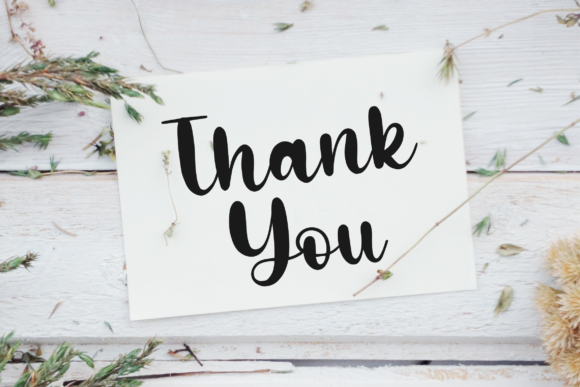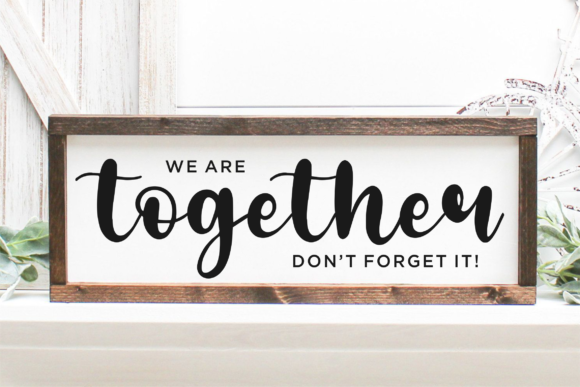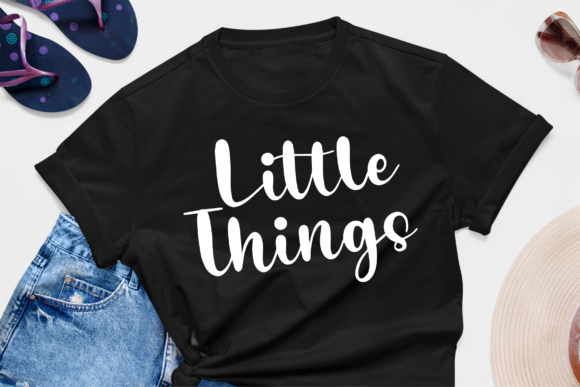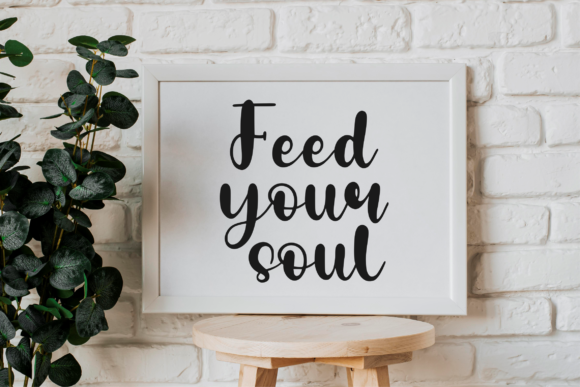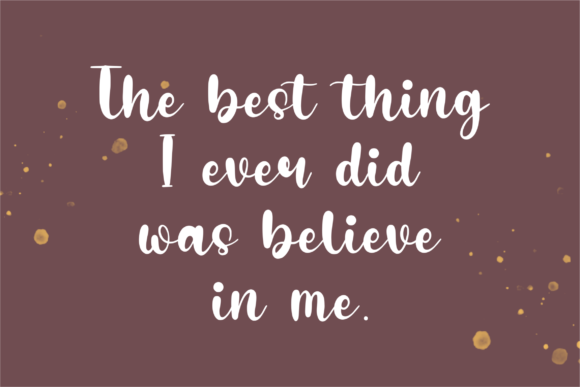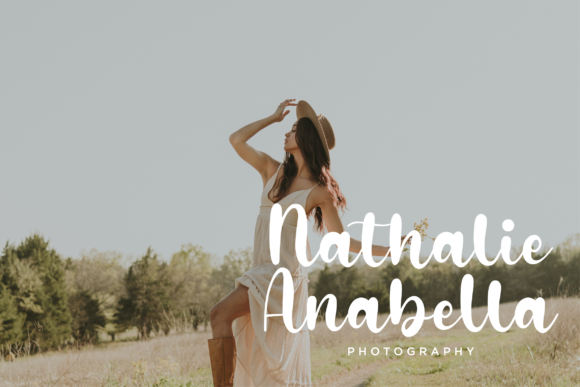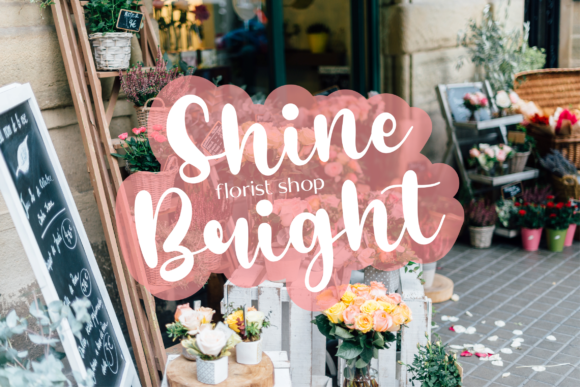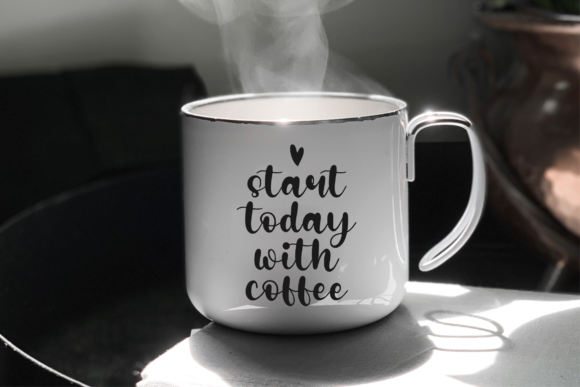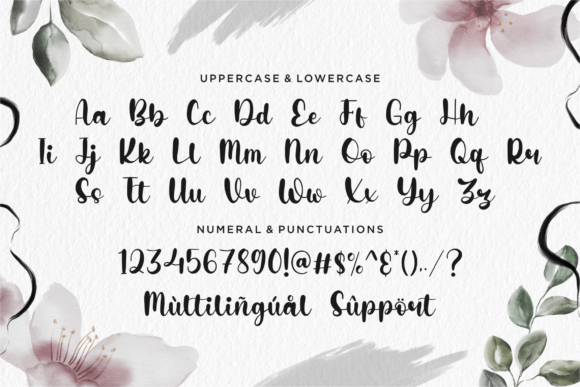
Bouncy Blanket Font
“Bouncy Blanket” is a trendy and stylish script font that adds a playful and modern touch to any design project. With its bouncy and dynamic appearance, this font brings energy and personality to your creations, making it perfect for a variety of applications.
One of the standout features of “Bouncy Blanket” is its trendy and stylish design, which adds a contemporary flair to any project. Whether used for product packaging, branding projects, or magazine covers, this font’s playful vibe instantly grabs attention and makes a statement.
The font’s versatility makes it suitable for a wide range of applications, from social media graphics to wedding invitations. Its dynamic and expressive nature allows it to adapt seamlessly to different design contexts, ensuring that your projects stand out and leave a lasting impression.
Whether used for logos, headlines, or decorative elements, “Bouncy Blanket” adds a touch of creativity and fun to your designs. Its stylish script style conveys a sense of personality and uniqueness, making it the perfect choice for expressing words above the background and adding visual interest to your projects.
Overall, “Bouncy Blanket” is a trendy and stylish font that brings a modern edge to any design. Whether used for commercial or personal projects, this font’s playful and dynamic appearance adds a touch of excitement and creativity that elevates your creations to new heights.